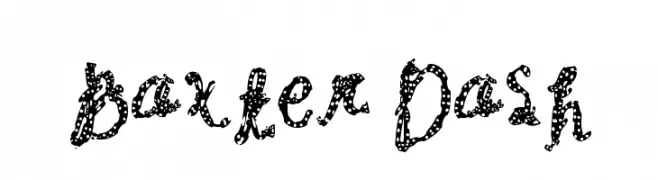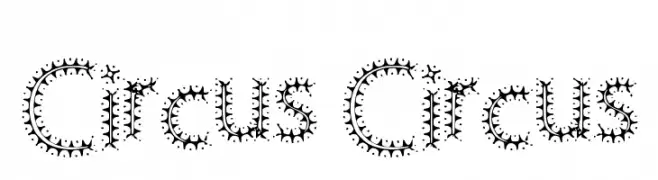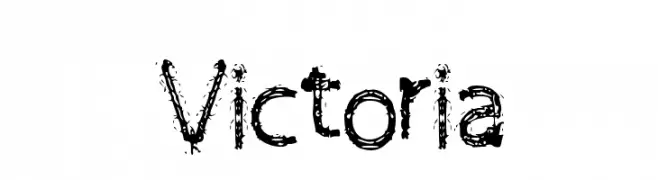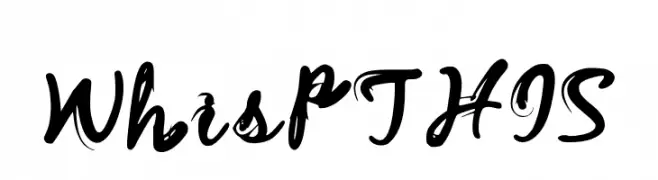
A nostalgic, handwritten font with fluid, organic characters.
A bold, distressed font with a hand-drawn, textured appearance.
A playful, decorative font with bubble-like outlines and a whimsical style.
A playful, decorative font with circus-inspired embellishments.
A playful, bold handwritten font with a casual and friendly style.
A bold, distressed font with a hand-drawn, grunge aesthetic.
A bold, brush-style script font with dynamic, sweeping strokes.
A playful, dotted font with a hand-drawn, whimsical style.
A playful, decorative font with bold, swirling patterns.